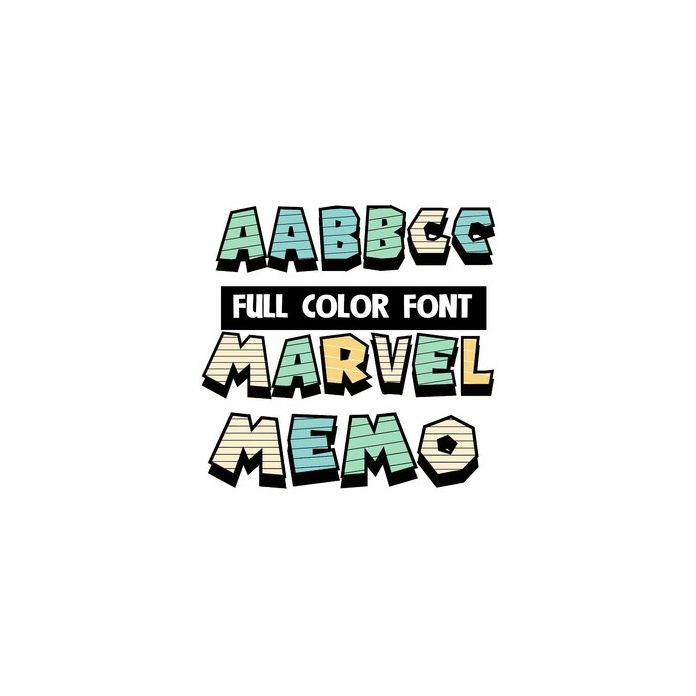
This full-color font features lined notebook paper in pastel colors in bulky lettering with black shadows. This font works best for titles, displays, posters and more. Please note color fonts will show as black in non compatible programs. This font type is compatible with Silhouette Studio.